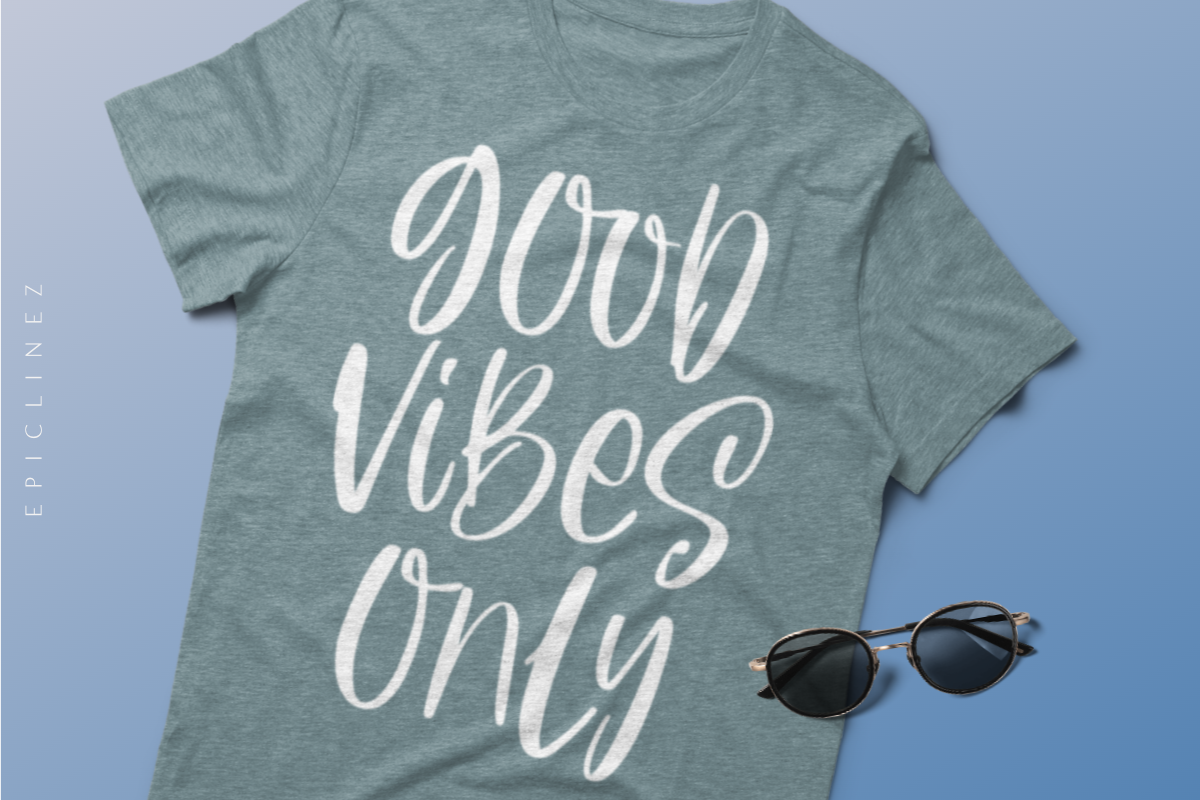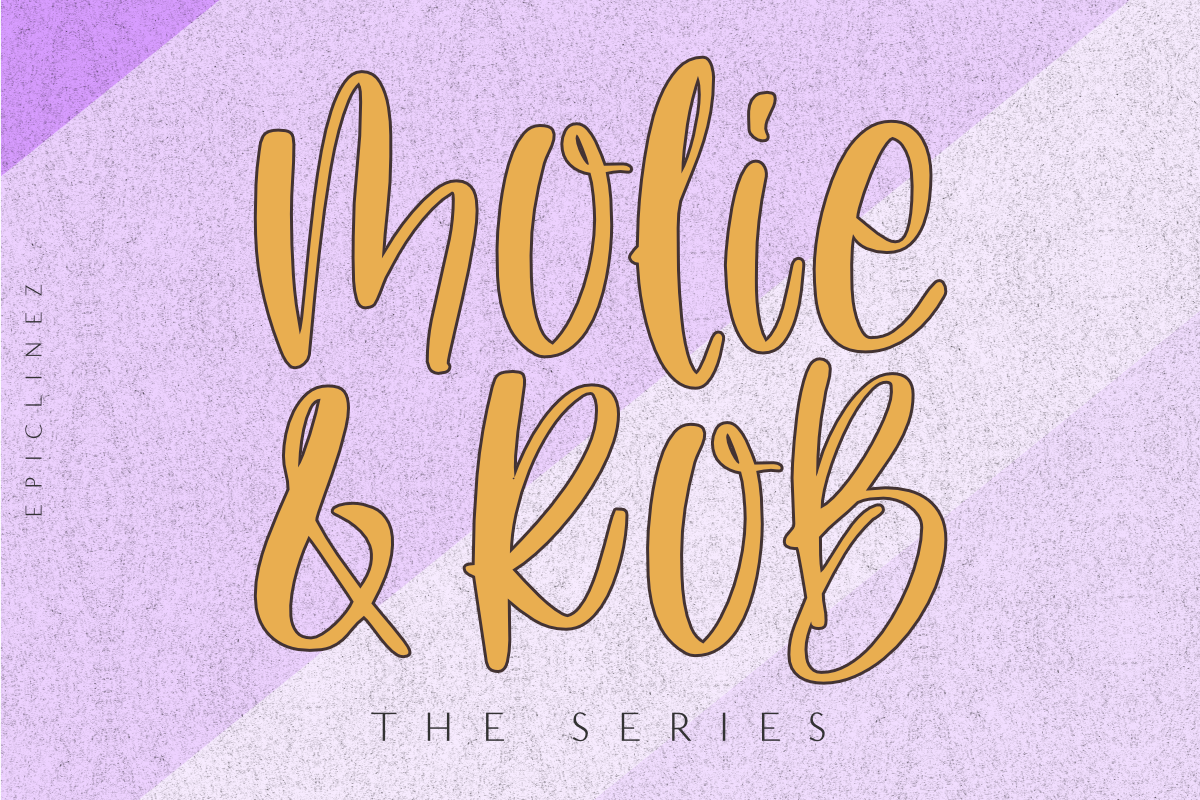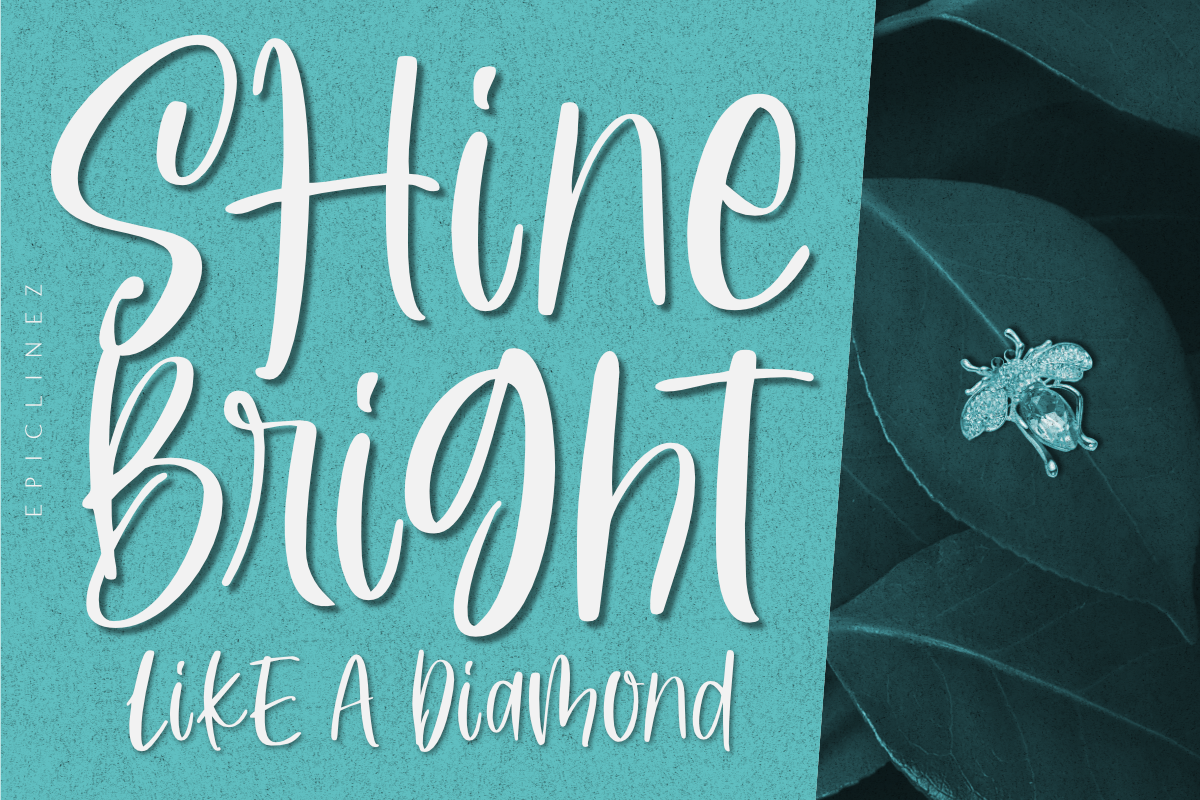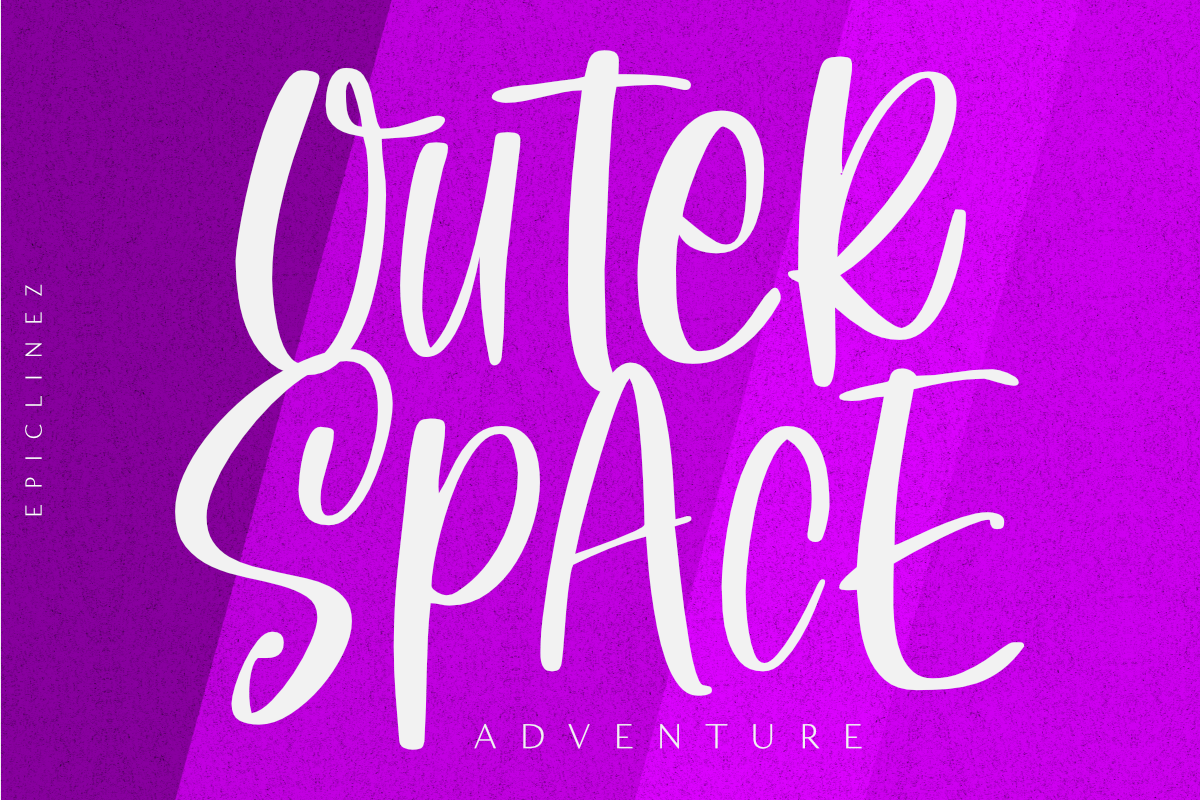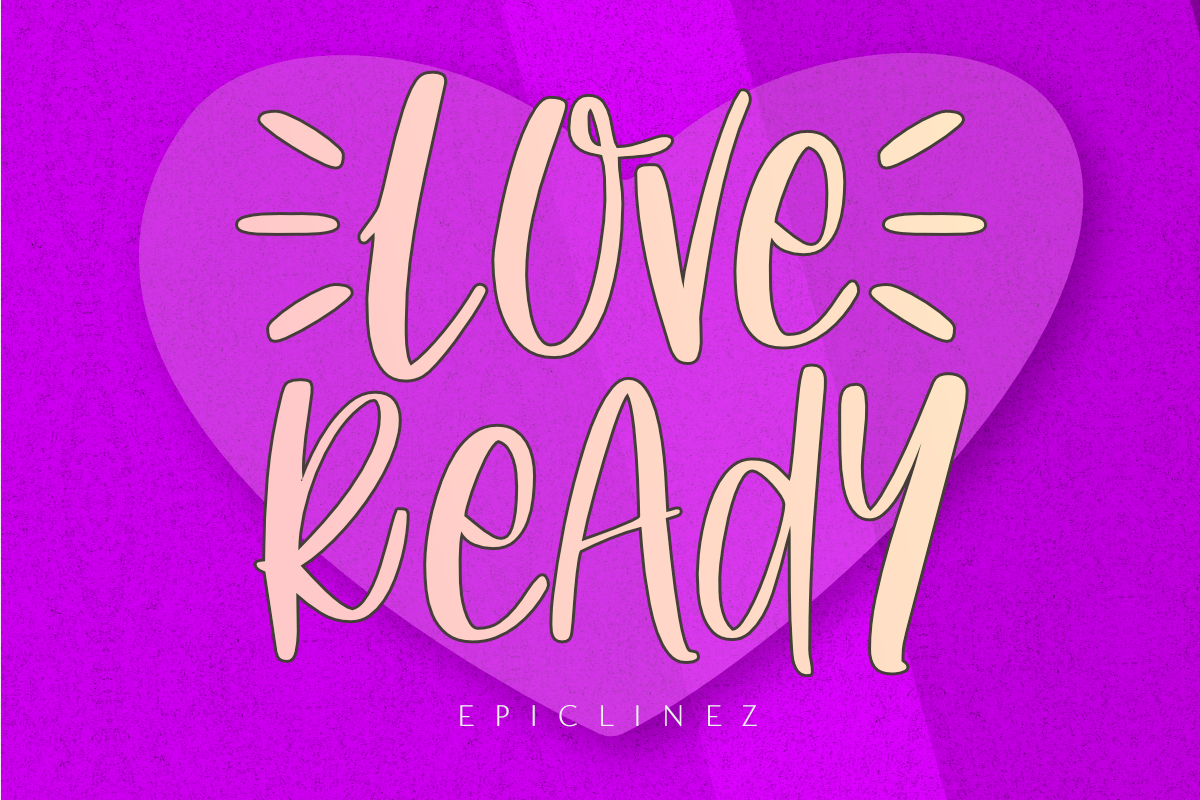
Love Ready - A Cute Handwritten Font
Love Ready is the perfect font to express yourself. It's playful, fun, and crafty - just like you! With its quirky letterforms and bold style, Love Ready is perfect for everything from product packaging to letterheads.